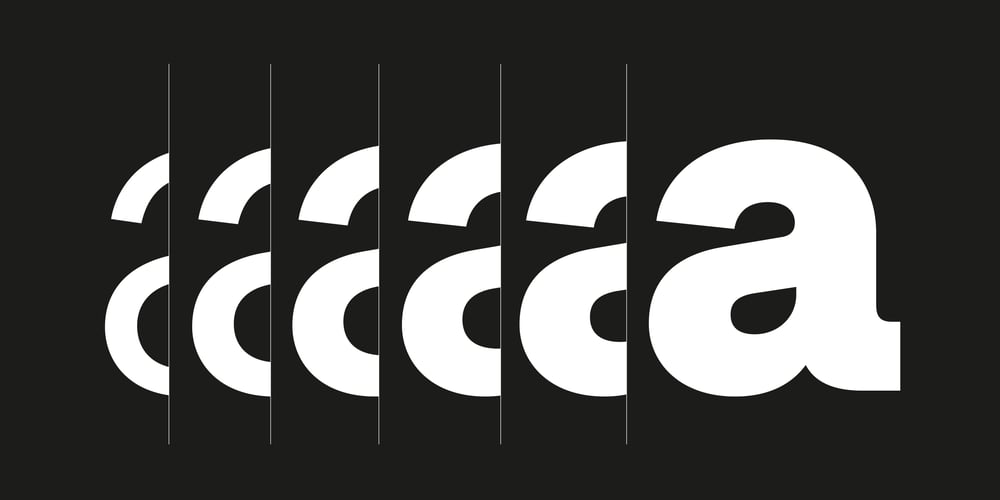
Approach Font Family was designed by Eduardo Manso and published by Emtype Foundry. Approach contains 16 styles and family package options. Approach is a modern approximation to the early grotesques. An utilitarian low contrast font, a bit mechanic but plenty of character. One of its characteristic elements is a kind of ‘elbow pipe’ shape that is present in many letters like the tail of the a, f, j, t, R, Q or 1 among others. Besides, the synthetic punctuation and quotes give it a more contemporary appearance. Approach tries to feel fresh against all odds, being familiar but different. For more details see the PDF.